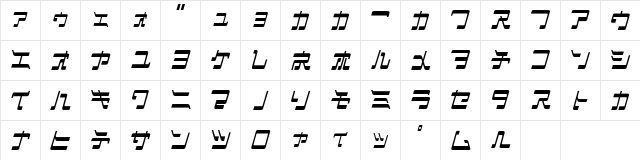
ManiacKt Regular Font Preview
ManiacKt Regular
ManiacKt Regular Font Details
Design Context for ManiacKt Typeface
ManiacKt takes a measured approach to typography — its balanced proportions and neutral character make it a reliable workhorse for both digital and print work.